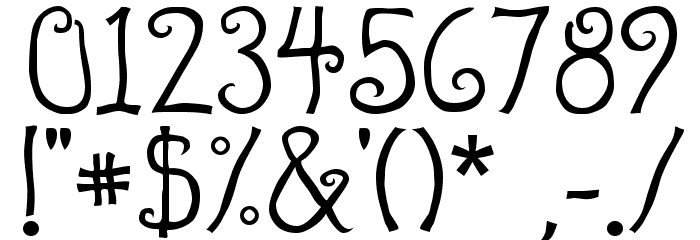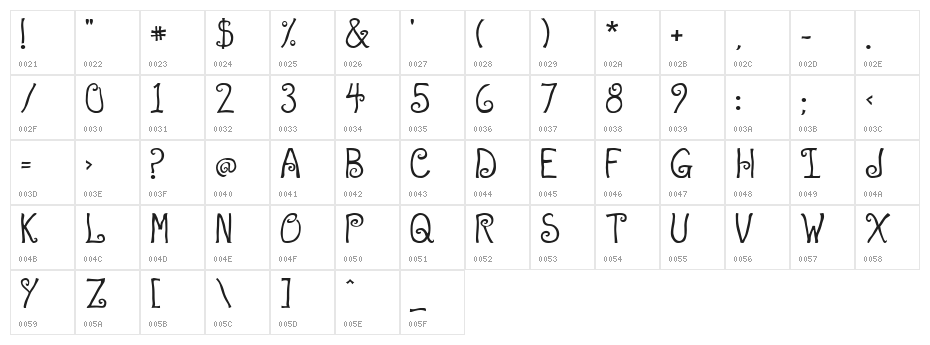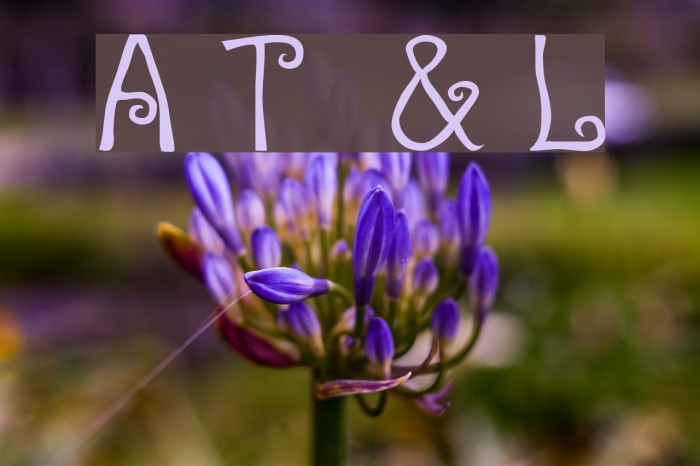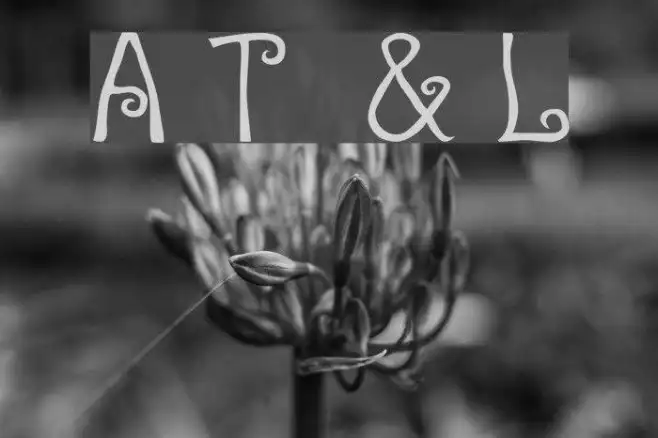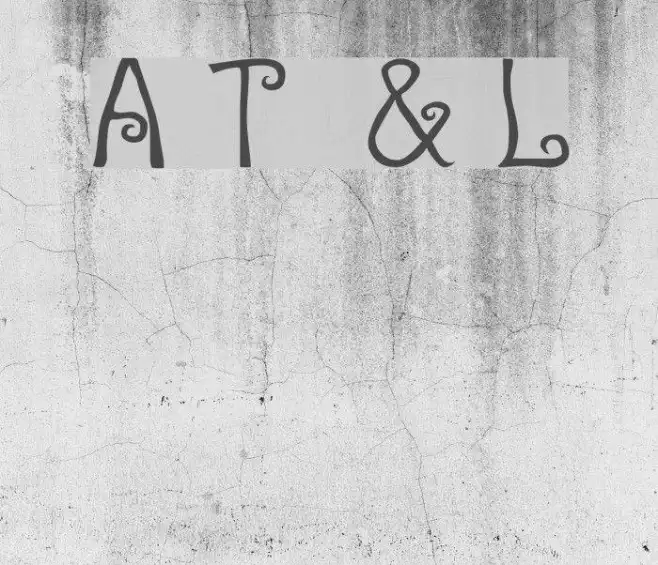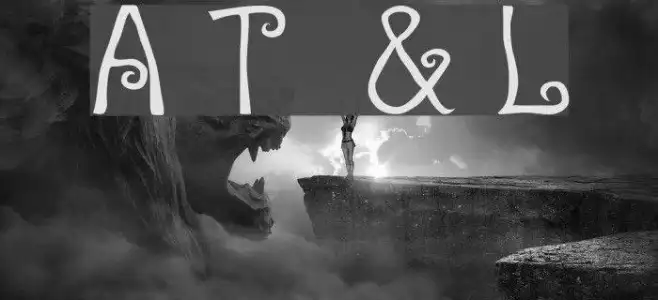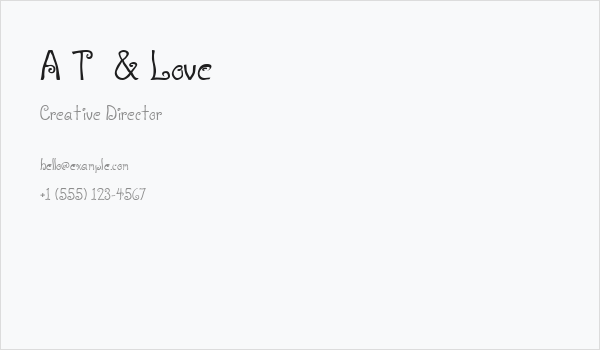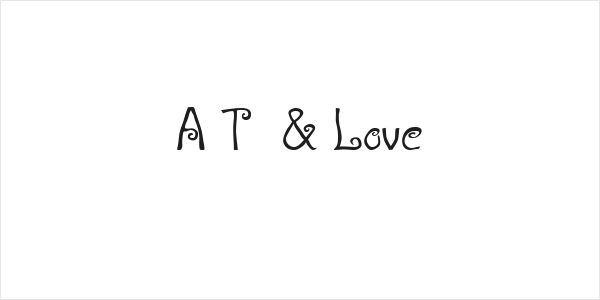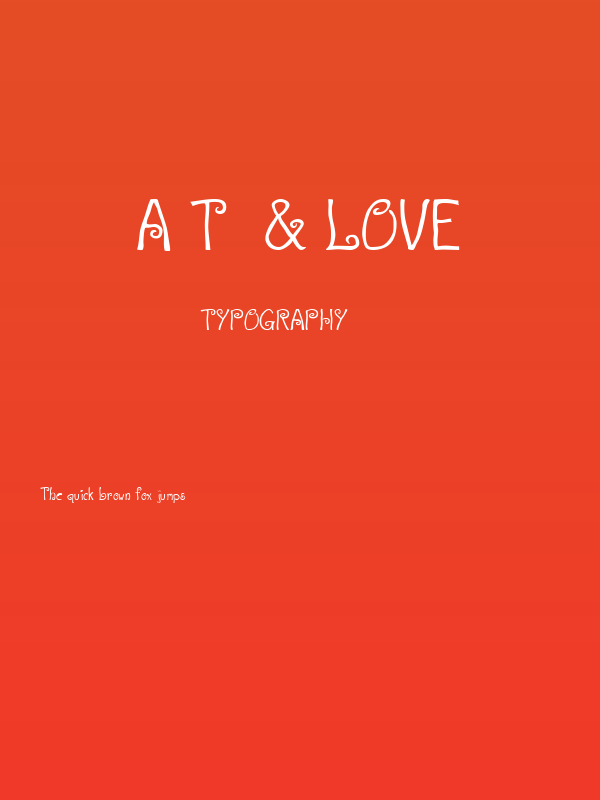
A T & Love Font
A T & Love Description
This whimsical and playful font features a unique blend of curves and swirls, giving it a lively and energetic feel. The uppercase letters are bold and prominent, with distinctive loops and curls that add a touch of creativity. The lowercase letters maintain a similar style, with some characters featuring charming embellishments. Numbers and special characters are designed to match the overall playful aesthetic, making this font ideal for projects that require a fun and engaging look. The font's artistic flair makes it stand out, perfect for capturing attention in various design contexts.
| Proposed Projects | Ideal for children's book covers, playful branding, greeting cards, and creative posters. |